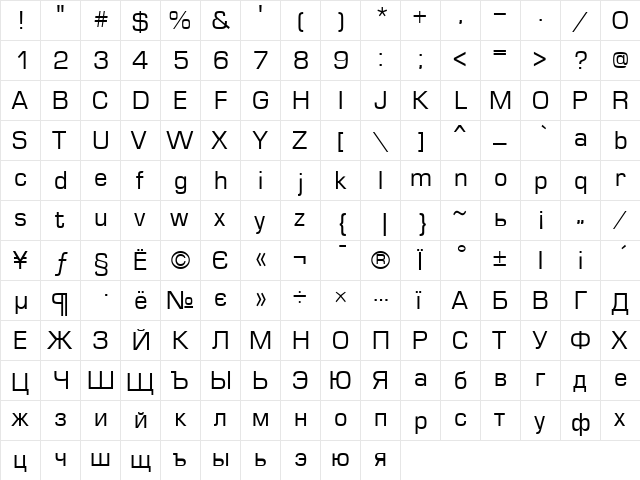
font140 Normal
Design Context for font140 Typeface
font140 is a composed and adaptable typeface that performs quietly and consistently across a wide range of design contexts.